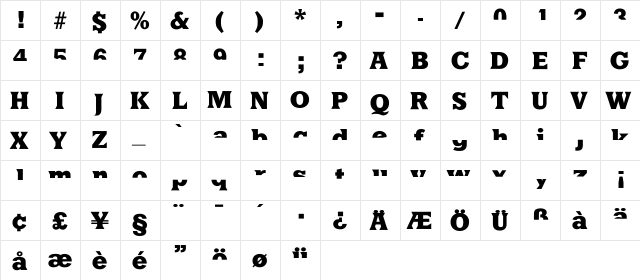
HalfsAreEnoughLatin Regular
Design Context for HalfsAreEnoughLatin Typeface
HalfsAreEnoughLatin is a composed and adaptable typeface that performs quietly and consistently across a wide range of design contexts.